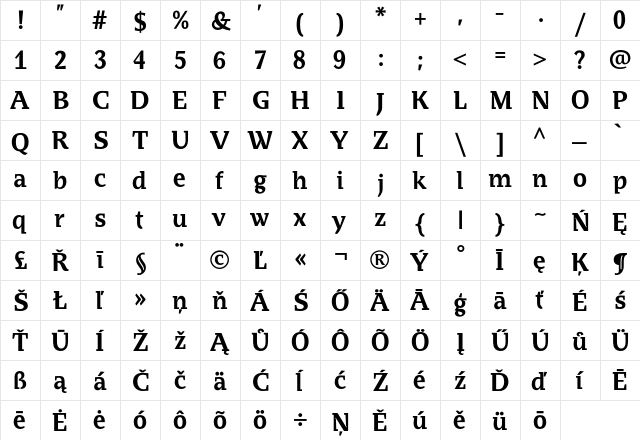
BradloSlabCE Bold
Design Context for BradloSlabCE Typeface
BradloSlabCE combines the readability of serif typography with the visual weight of a slab construction, resulting in a typeface that feels both authoritative and approachable. Its bold stroke weight gives it real presence on the page.
Suited to magazines, political campaign materials, bold packaging, and any setting where authority matters.
Pro Tip: Use BradloSlabCE for headlines and subheadings where its slab serifs can make an impression. It also holds up well in mid-size body copy thanks to its sturdy construction.